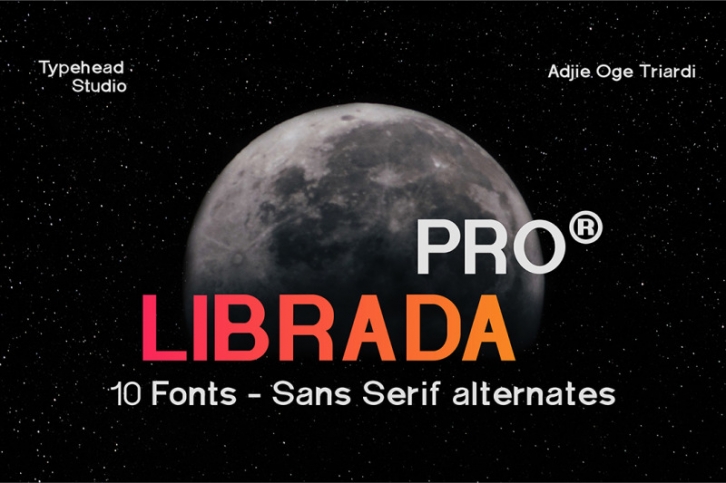
Librada Pro is a Sans-serif style font.librada pro font has 10 variants of style weight, ranging from Thin, Regular, Bolt, Outline Style and Texture Style. Each variation has 2 types of styles Regular and italic.
Librada Pro Font is suitable for any design needs, invitation design, branding, Cover Book design, advertising design,
Art Quote, Home decor, Book Title, special events, birthday, custom mug, pillow, t-shirts, any handwriting signature style needs and more.